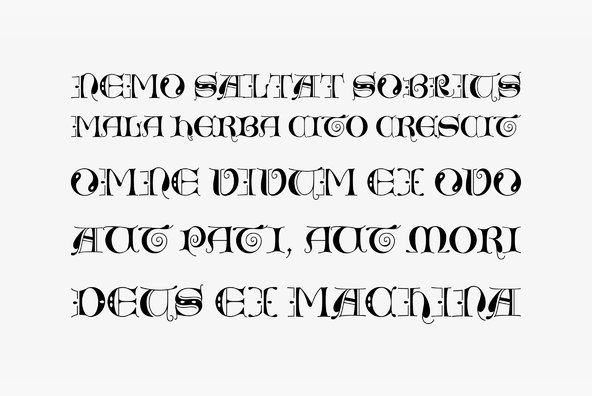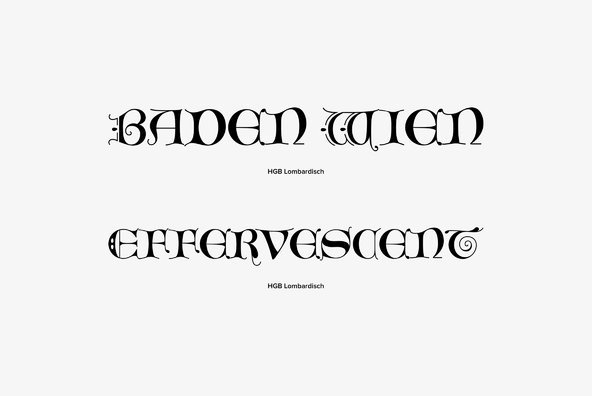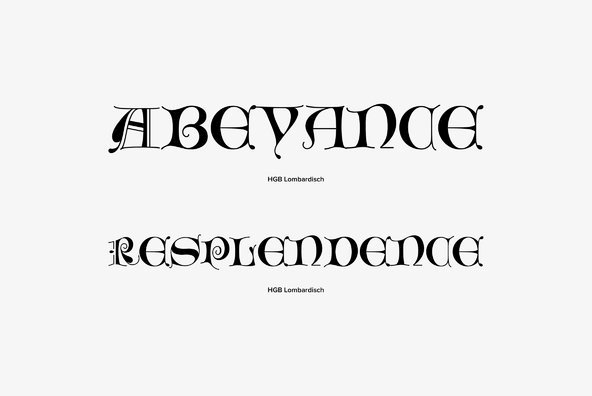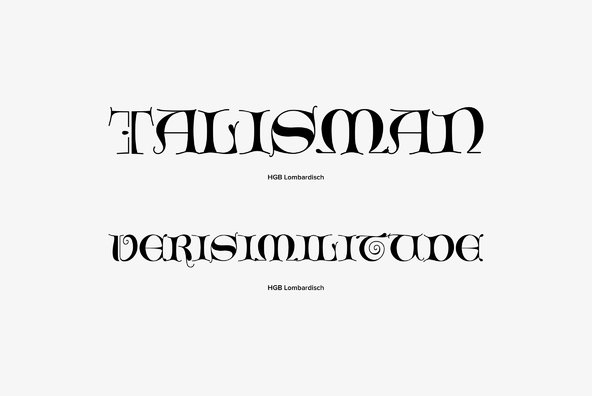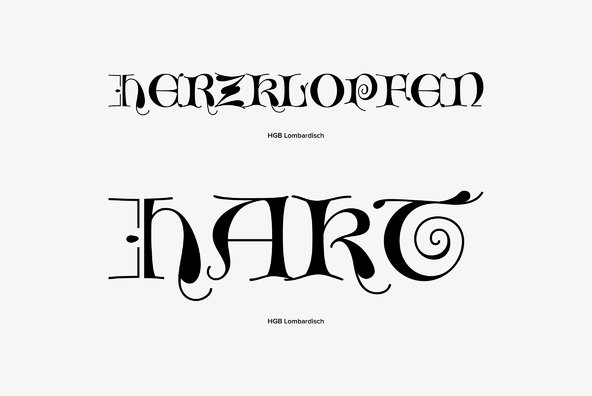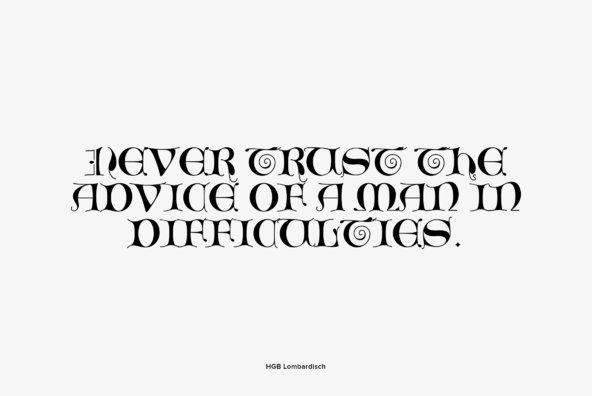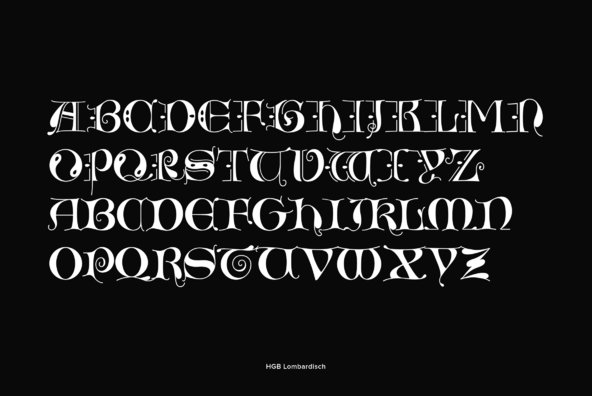
HGB Lombardisch
In mediaeval times, Lombardic initials were popular for embellished upper case in handwriting. Also, in ancient print products of the reanaissance, like e.g. in the Schedelschen Weltchronik of 1493, Lombardic initials were used to mark indentions. In other cases, Lombardic initials were set for Inscripts, like e.g. at the Gotische Münster in Schwäbisch-Gmünd. Designed by Hellmut G. Bomm in 2008.